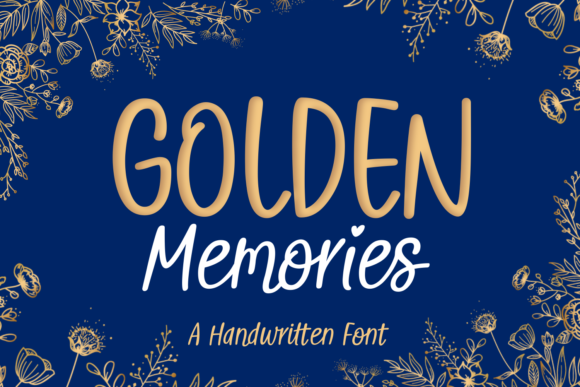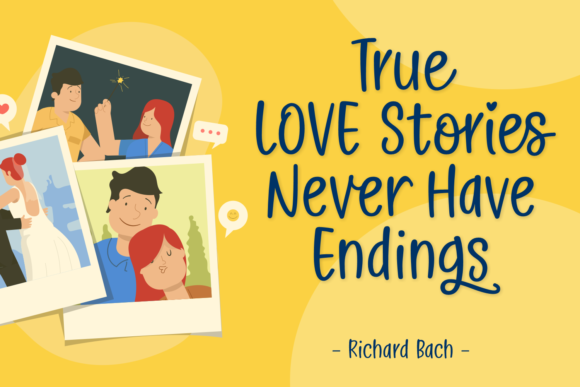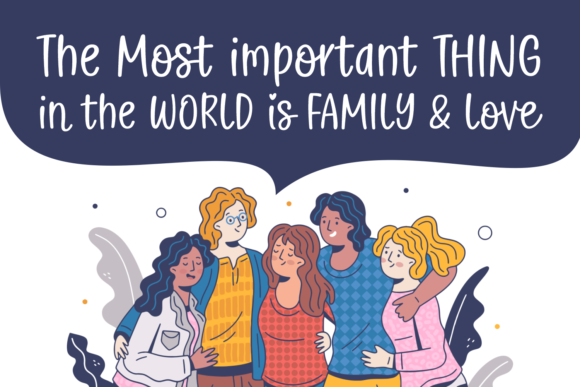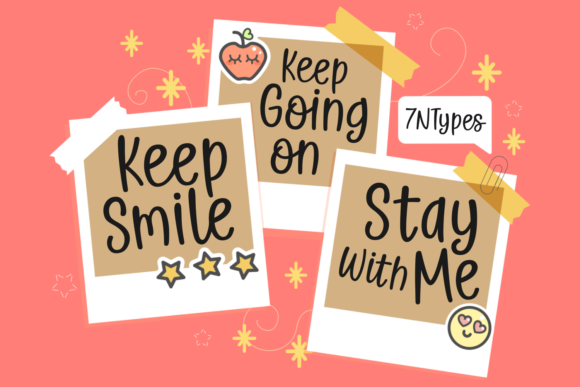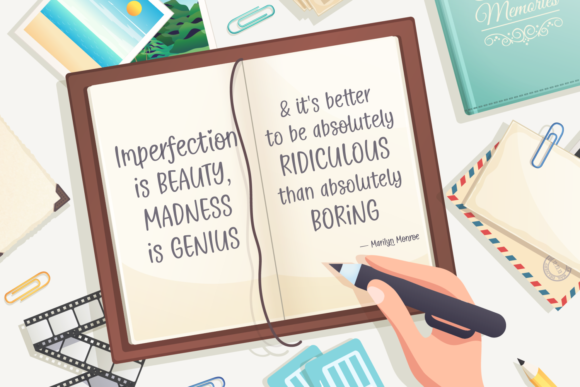
Golden Memories Font
About Golden Memories Font
Golden Memories is a jolly and friendly script font. Its casual charm makes it appear wonderfully down-to-earth, readable and, ultimately, incredibly versatile. Golden Memories will look outstanding in any context, whether it’s being used on busy backgrounds or as a standalone headline!